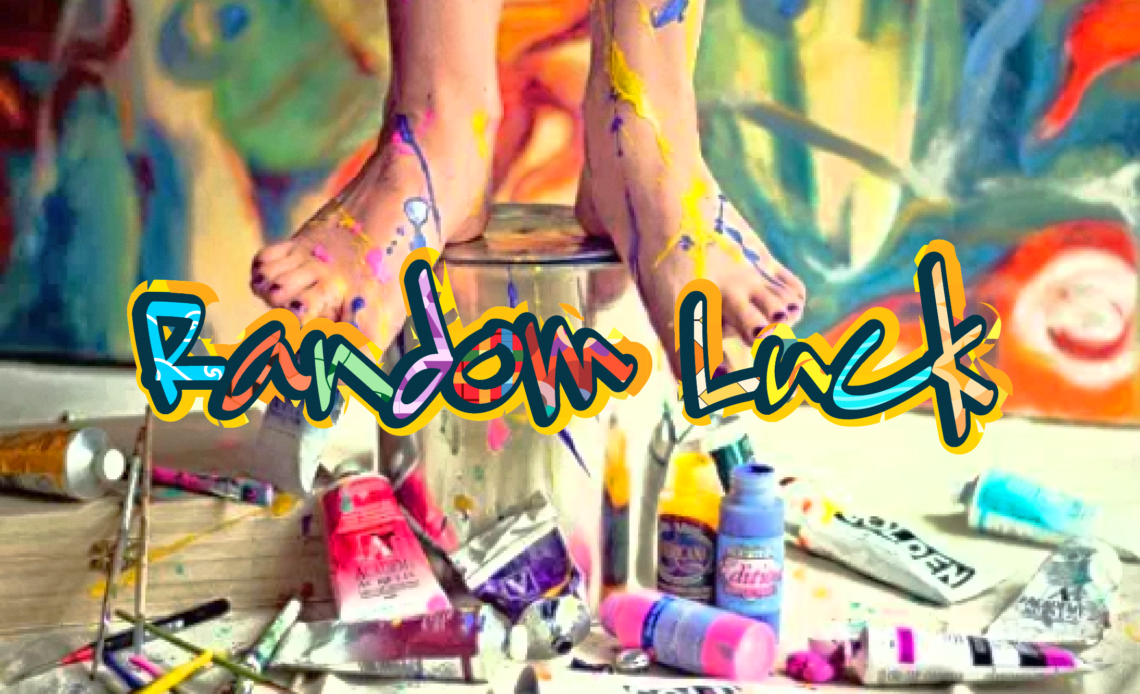
Random Luck Font
Embrace the allure of Random Luck, a script font that echoes the raw beauty of handwritten elegance. Its edgy strokes, reminiscent of a skilled calligrapher's touch, infuse your designs with a touch of untamed charm. Experience the freedom of expression as your words dance across the page, carried by the graceful curves and spontaneous flourishes of Random Luck. Each letter, meticulously crafted by KPH, captures the essence of spontaneity and authenticity.
Unleash your creativity with Random Luck, a font that transcends ordinary. Let your imagination roam free, knowing that this font will faithfully translate your ideas into visually captivating masterpieces. Its versatility knows no bounds, accommodating a myriad of design styles, from whimsical invitations to eye-catching logos and everything in between.
Imagine your words taking center stage, adorned with the distinctive character of Random Luck. Its bold strokes command attention, drawing the eyes to your message, while its playful spirit adds a touch of delight. Enchant your audience with designs that exude both sophistication and a touch of delightful quirkiness.
Embrace the power of Random Luck, a font that captures the essence of individuality. Its unique aesthetic sets your designs apart, ensuring that your message is not just seen, but felt. Indulge in the joy of creating designs that resonate with your audience, leaving an indelible mark on their minds. Discover the transformative power of Random Luck today and unlock the endless possibilities it holds for your creative endeavors.
Immerse yourself in the realm of boundless creativity, where Random Luck becomes your trusted companion. Experience the thrill of crafting designs that exude a captivating allure, leaving your audience mesmerized by the beauty and originality of your work. With Random Luck, your designs transcend the ordinary, embracing a world of limitless expression and endless possibilities.